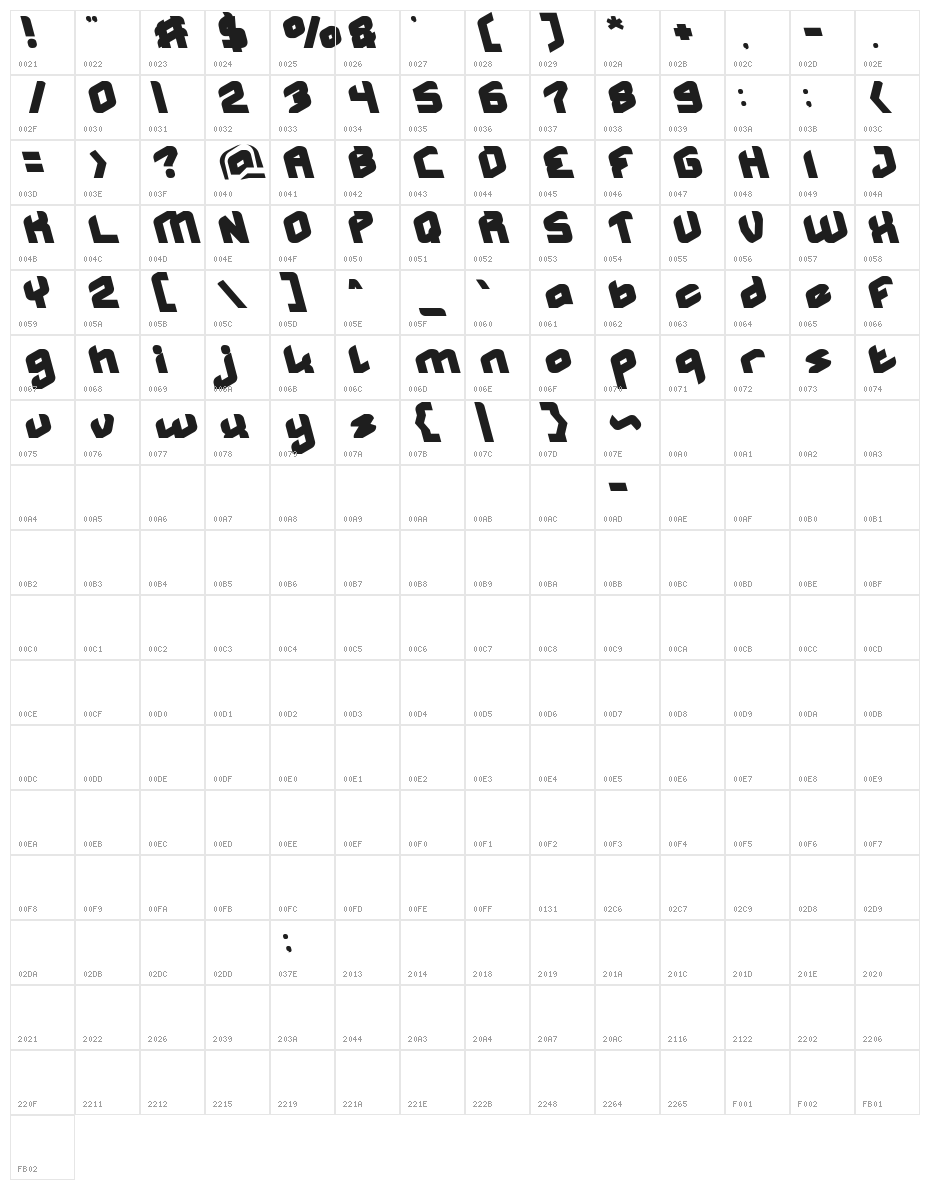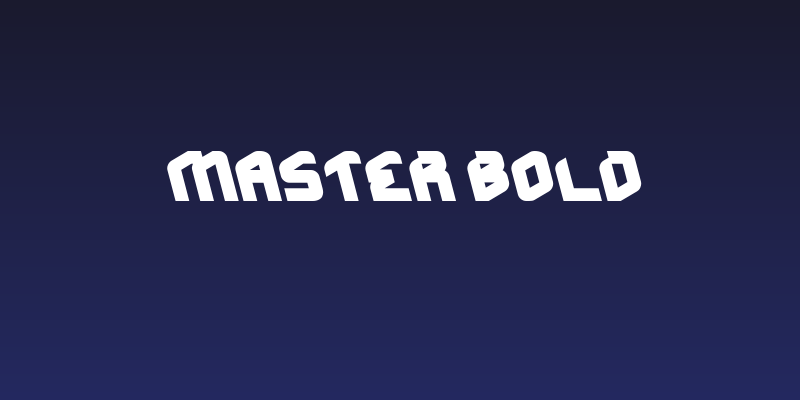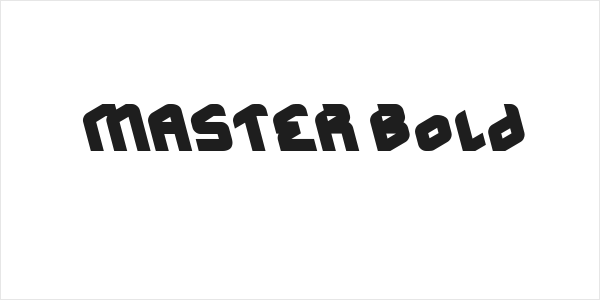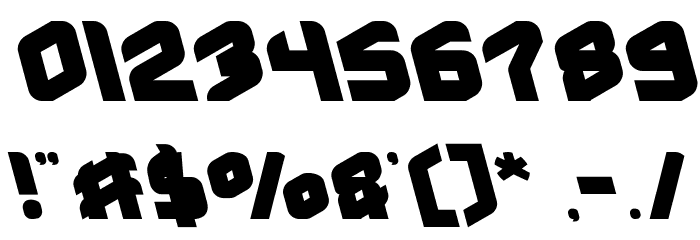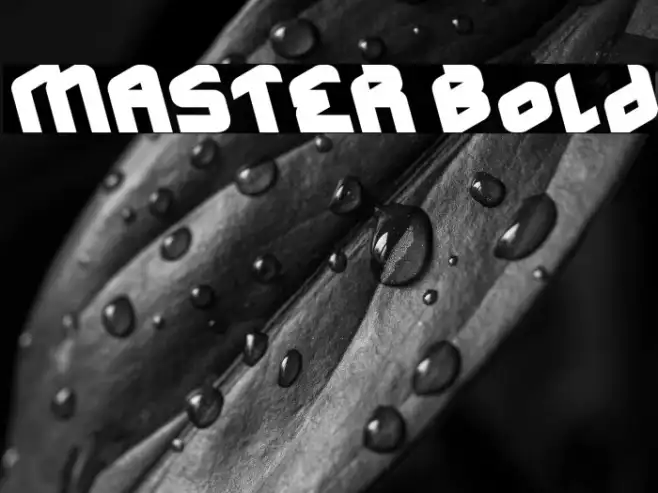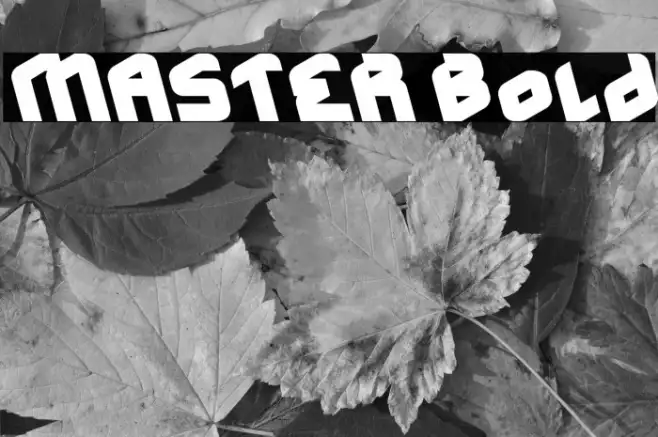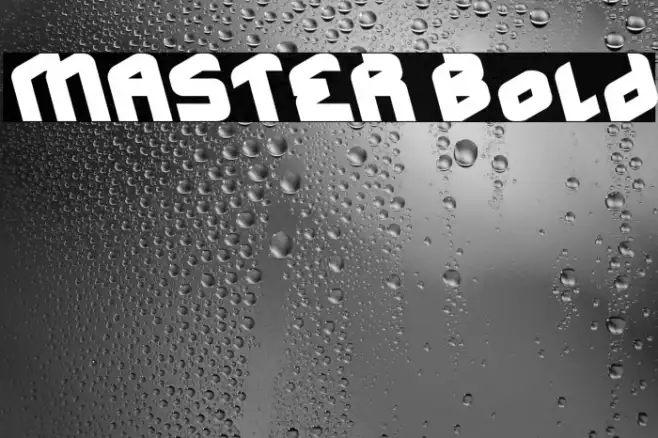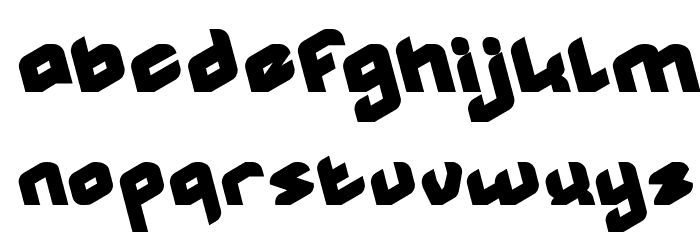
MASTER Bold Font
MASTER Bold Description
This font features a bold and dynamic style with a strong geometric influence. The characters are blocky and angular, giving a sense of movement and energy. The uppercase and lowercase letters maintain a consistent weight, creating a uniform appearance. The numbers and special characters follow the same design principles, ensuring cohesion across all glyphs. The font's boldness and unique shapes make it stand out, ideal for attention-grabbing designs.
MASTER-BOLD UPPERCASE
MASTER-BOLD LOWERCASE
MASTER-BOLD OTHER CHARS
| Proposed Projects | Ideal for posters, headlines, branding, and any project requiring a strong visual impact. |